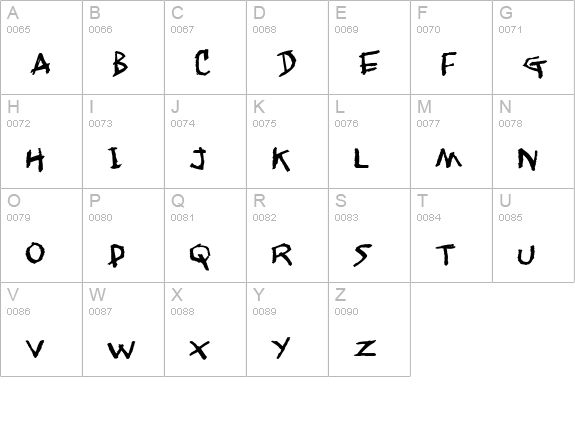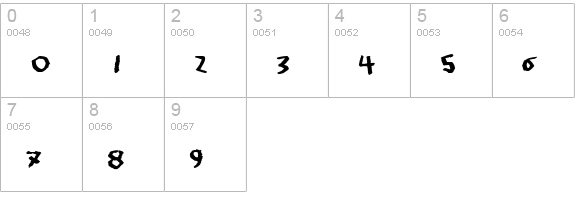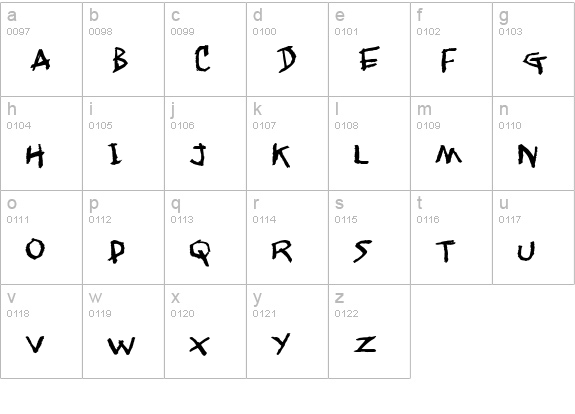
Jangly walk Font Details
Introducing the Jangly Walk font, a whimsical and playful typeface that will add a touch of charm and character to your designs. With its jumpy and bouncy letters, this font exudes a sense of energy and excitement, making it perfect for projects that require a fun and lighthearted atmosphere. The Jangly Walk font features a unique combination of irregular shapes and uneven strokes, giving it a hand-drawn and slightly quirky appearance. Its letters dance across the page, creating a sense of movement and liveliness that is truly captivating. Whether you're looking to create eye-catching headlines, catchy slogans, or vibrant logos, the Jangly Walk font will make your text pop and stand out from the crowd. Its distinctive design lends itself perfectly to a variety of creative projects, from branding and advertising to invitations and greeting cards. And the best part? The Jangly Walk font is freely available to download at FontsMarket.com. That's right, you can easily access this delightful font and start using it in your designs without any cost. It's a fantastic opportunity to bring a touch of whimsy to your work without breaking the bank. So why wait? Download the Jangly Walk font today and let its jumpy and bouncy letters infuse your designs with an infectious sense of joy and playfulness. Get ready to captivate your audience and leave a lasting impression with this delightful and freely available typeface.